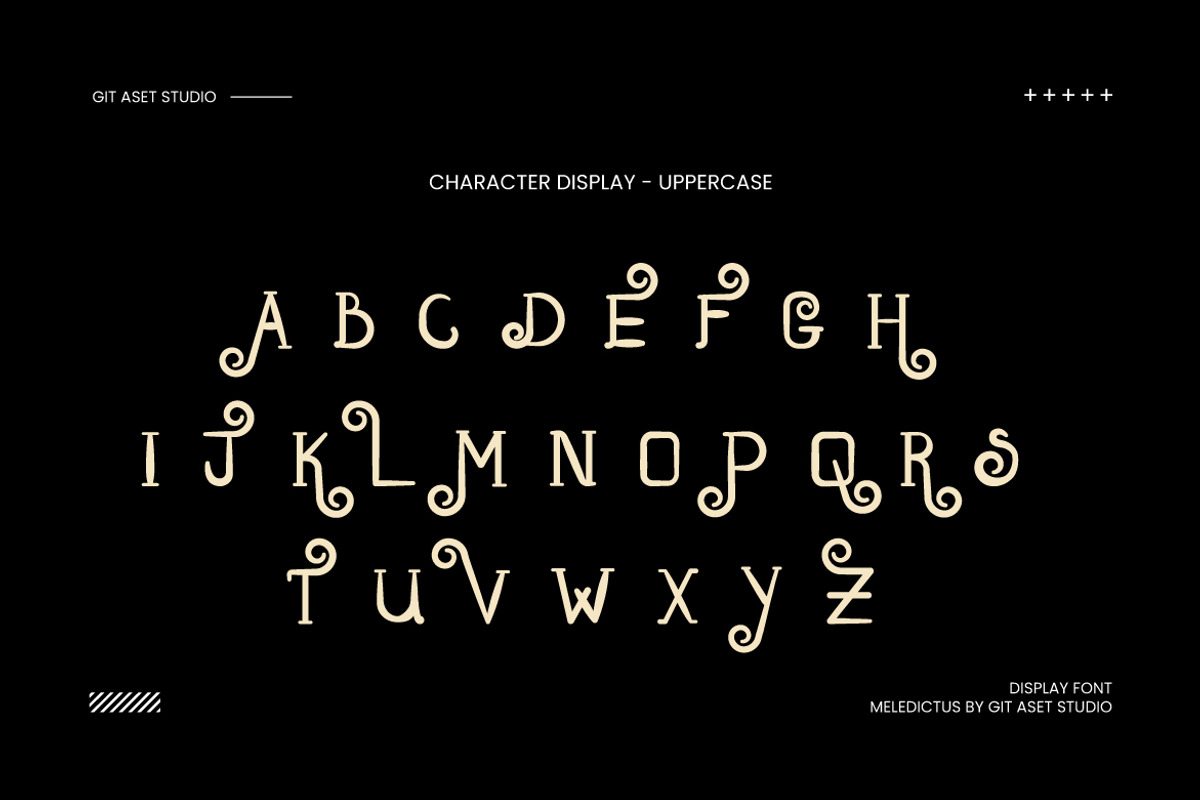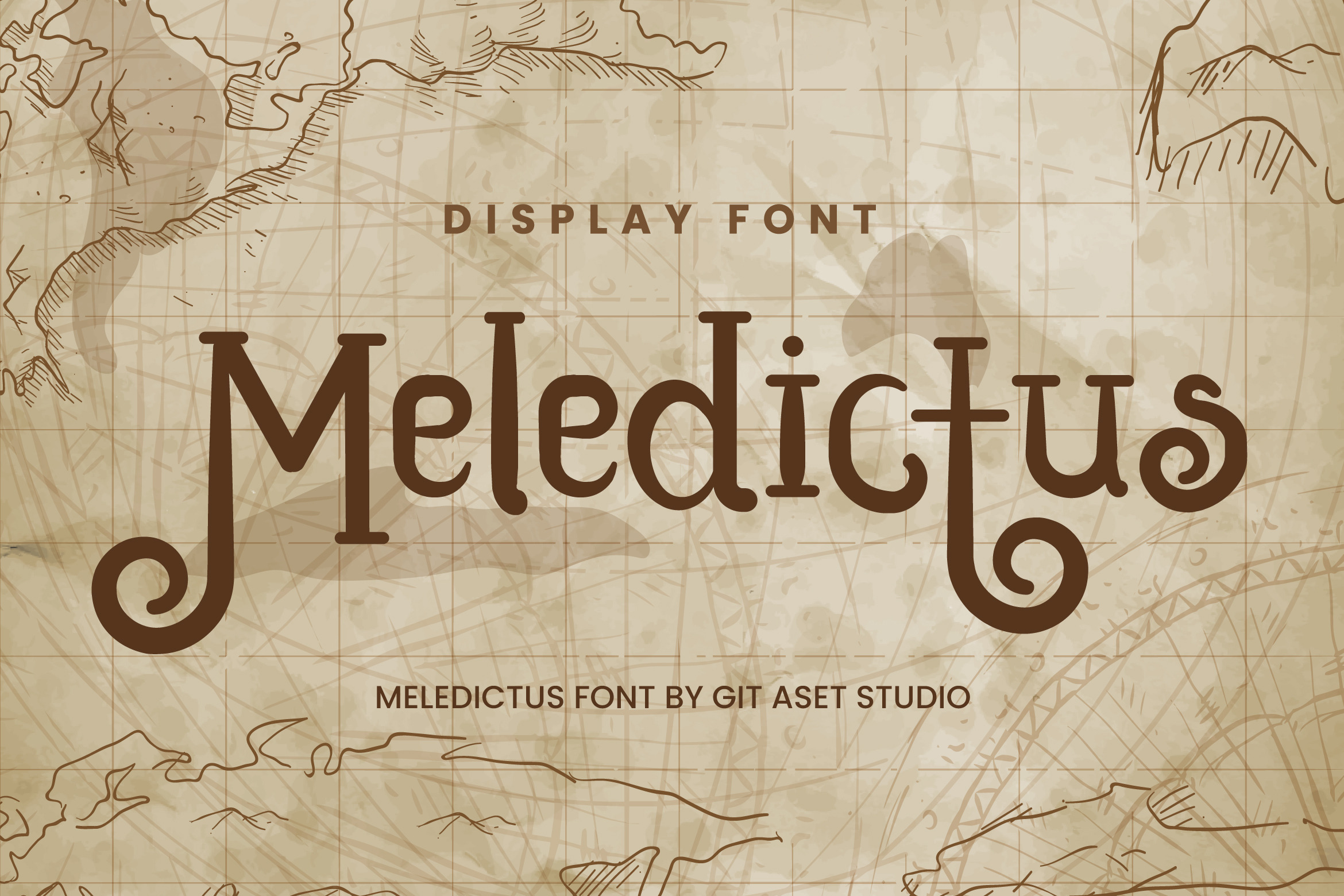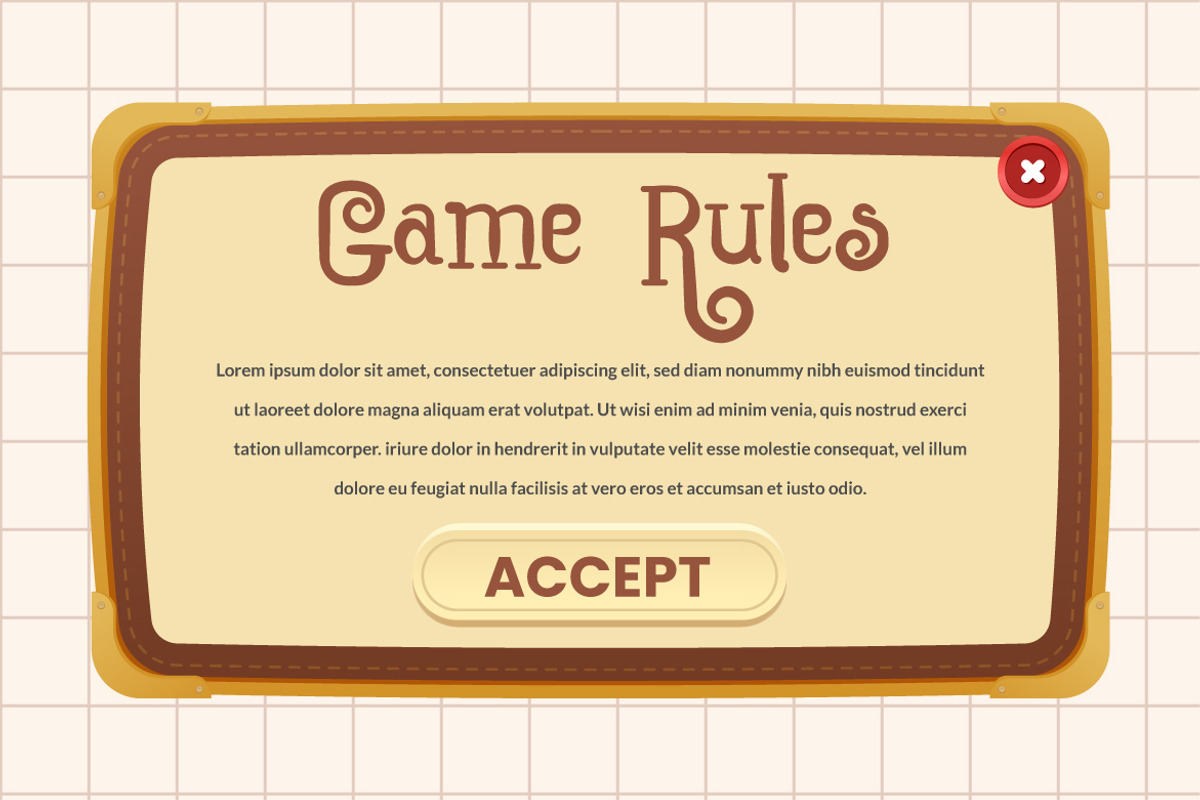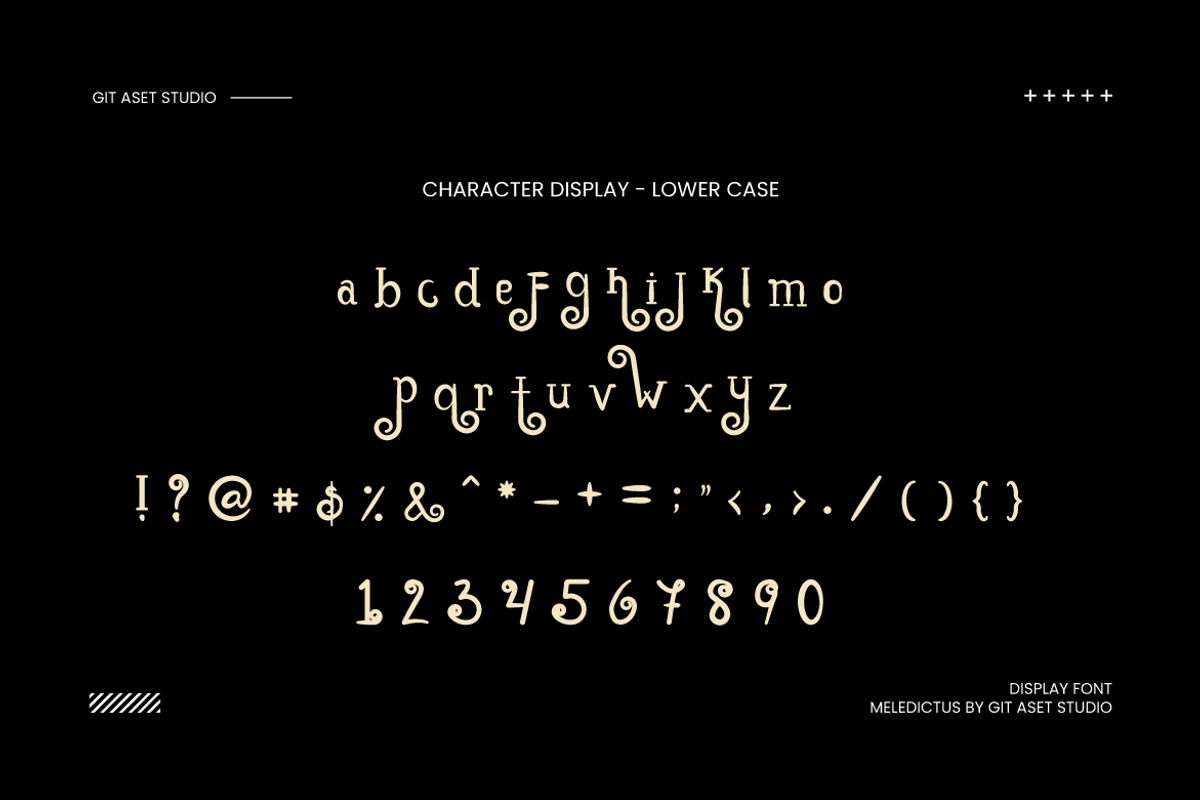
Meledictus Decorative Font
Discover the beauty of our Decorative Font! This stunning font asset offers a unique and distinctive style to enhance your design projects. With the file formats available in OTF and TTF, this font is easily accessible and compatible with various design applications.
Embrace the elegance of this font, perfect for both digital and print media. Its intricate details and captivating shapes will effortlessly add a touch of sophistication to any project, making it ideal for invitations, logos, typography art, or even branding materials.